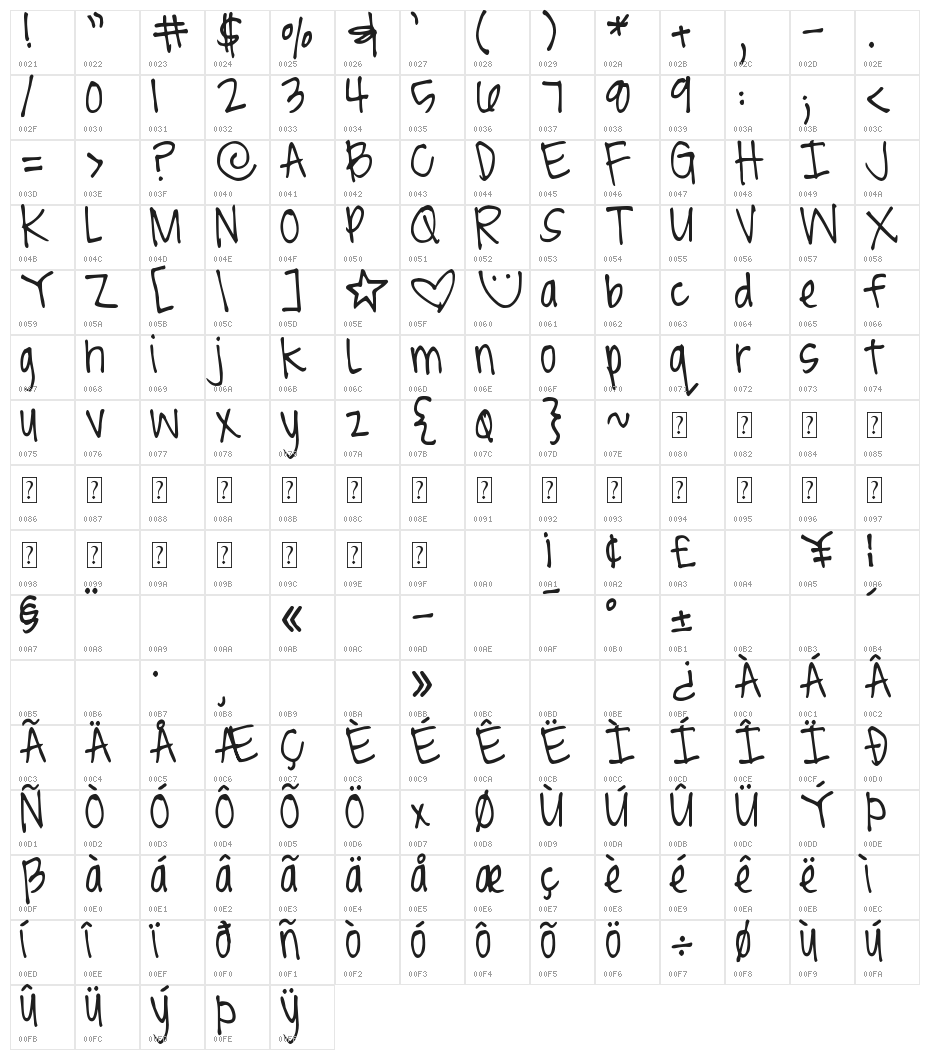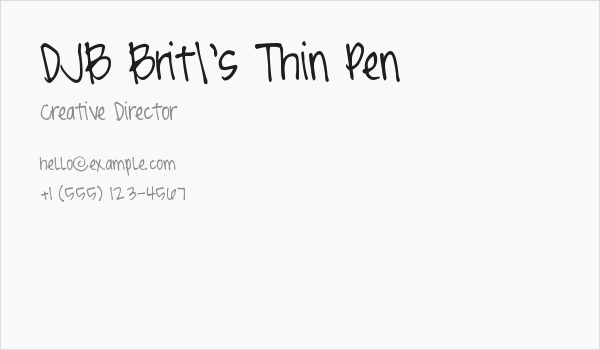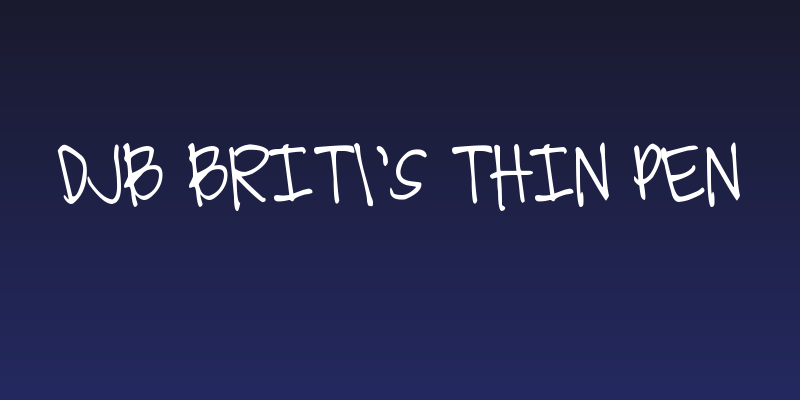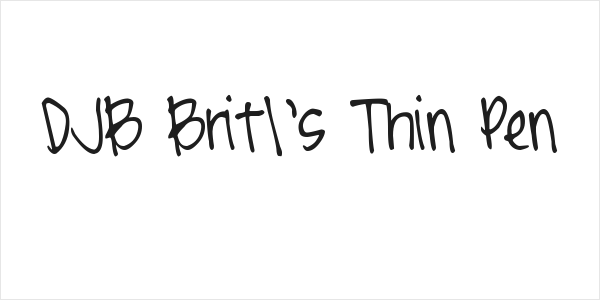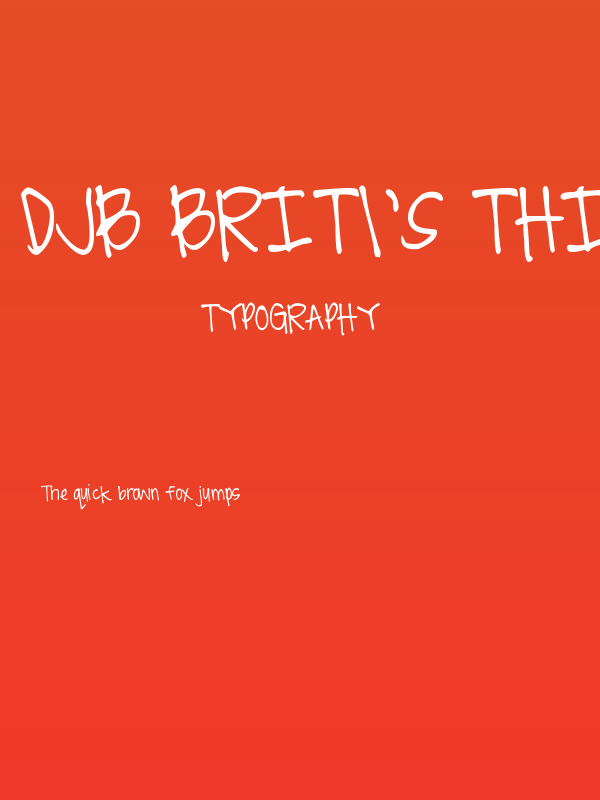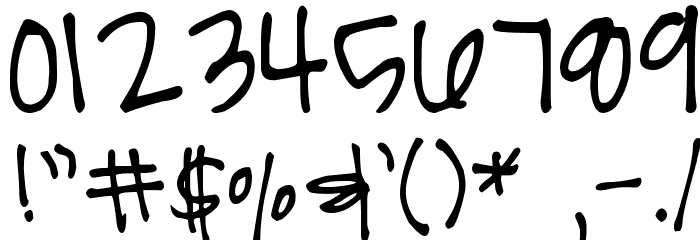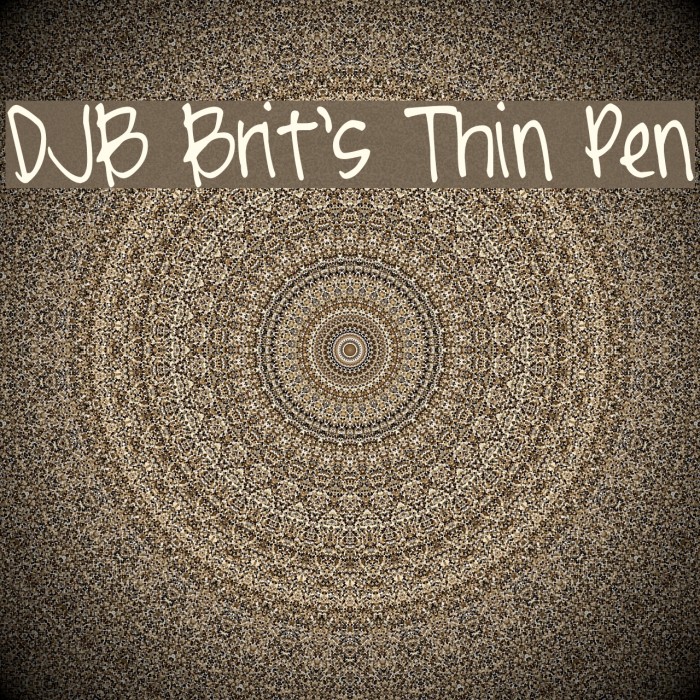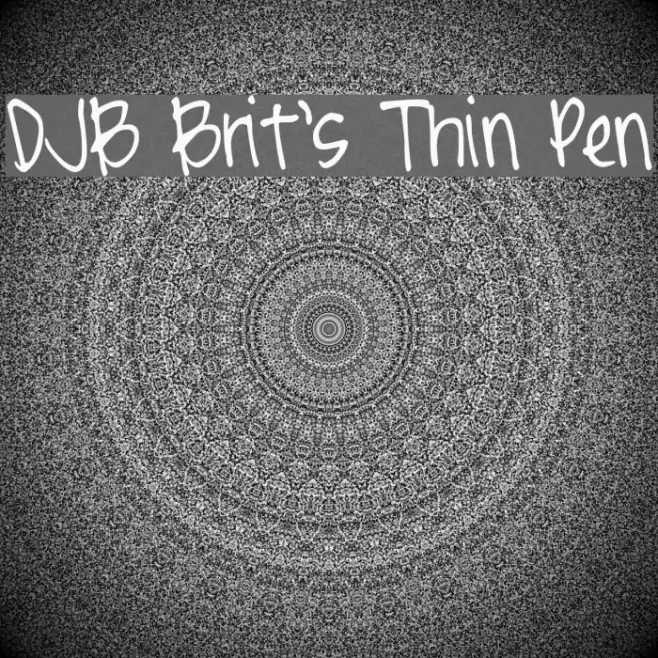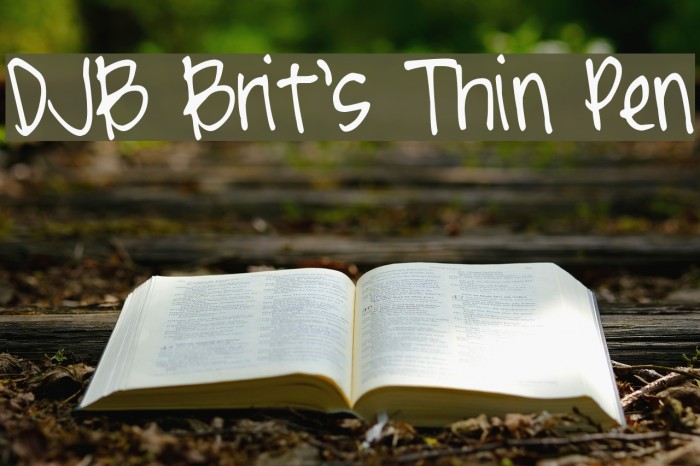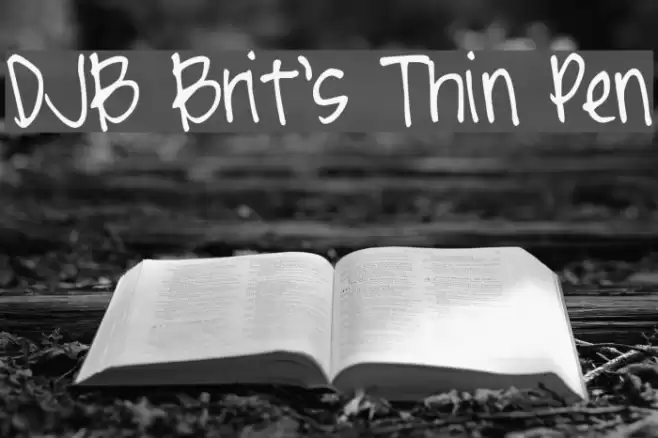
DJB Brit's Thin Pen Font
DJB Brit's Thin Pen Description
| Use Case | Informal text, personal projects, creative designs. |
| Proposed Projects | Ideal for invitations, greeting cards, personal branding, and informal communications. |